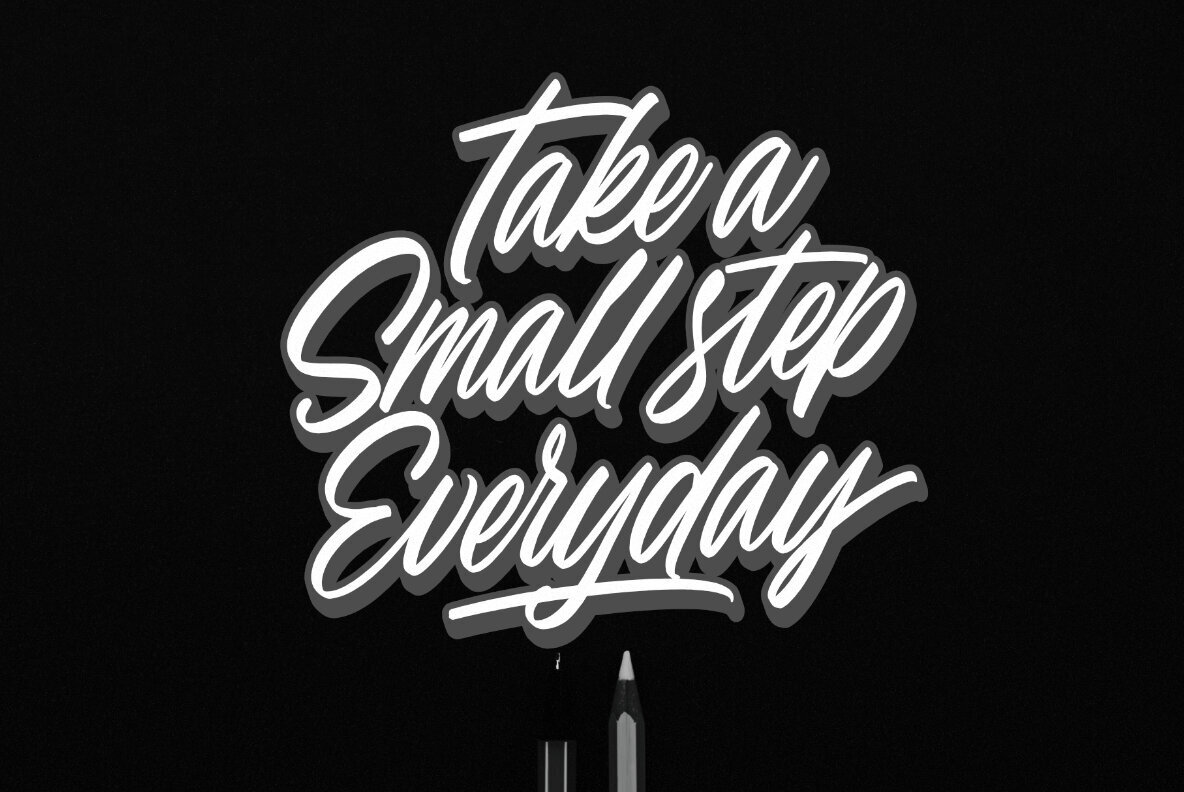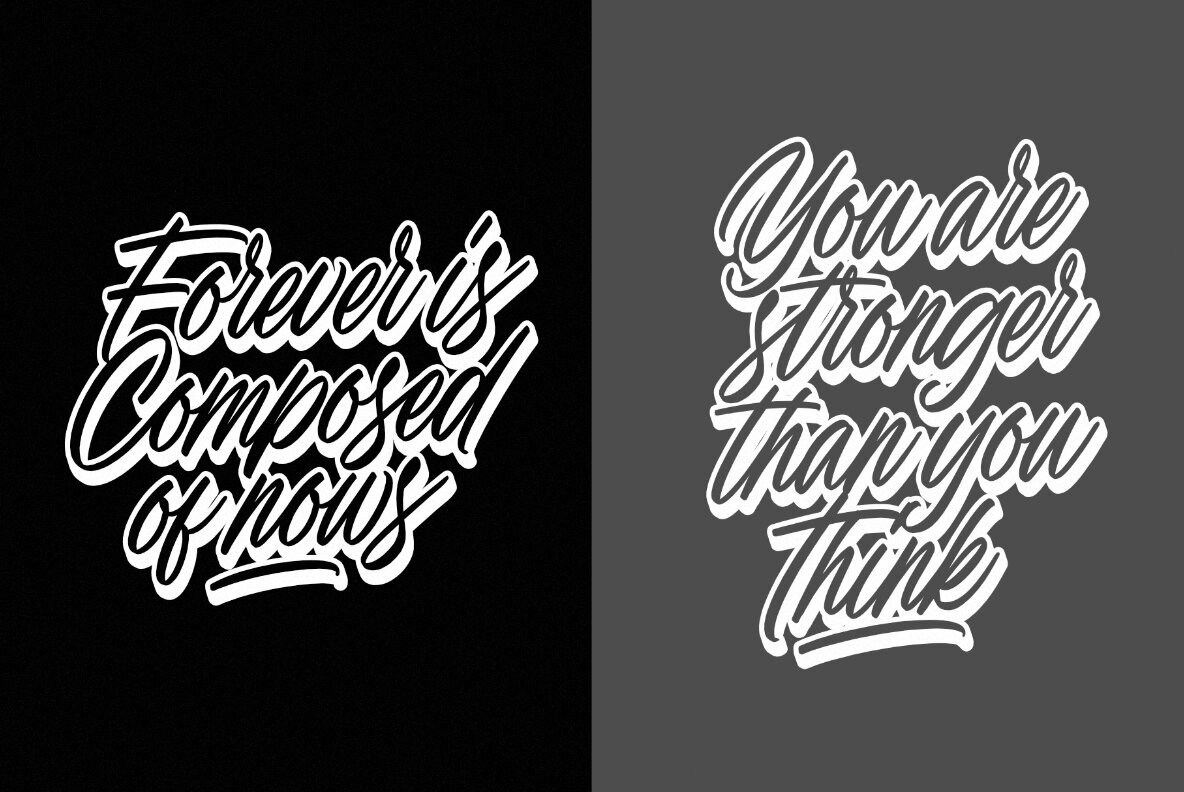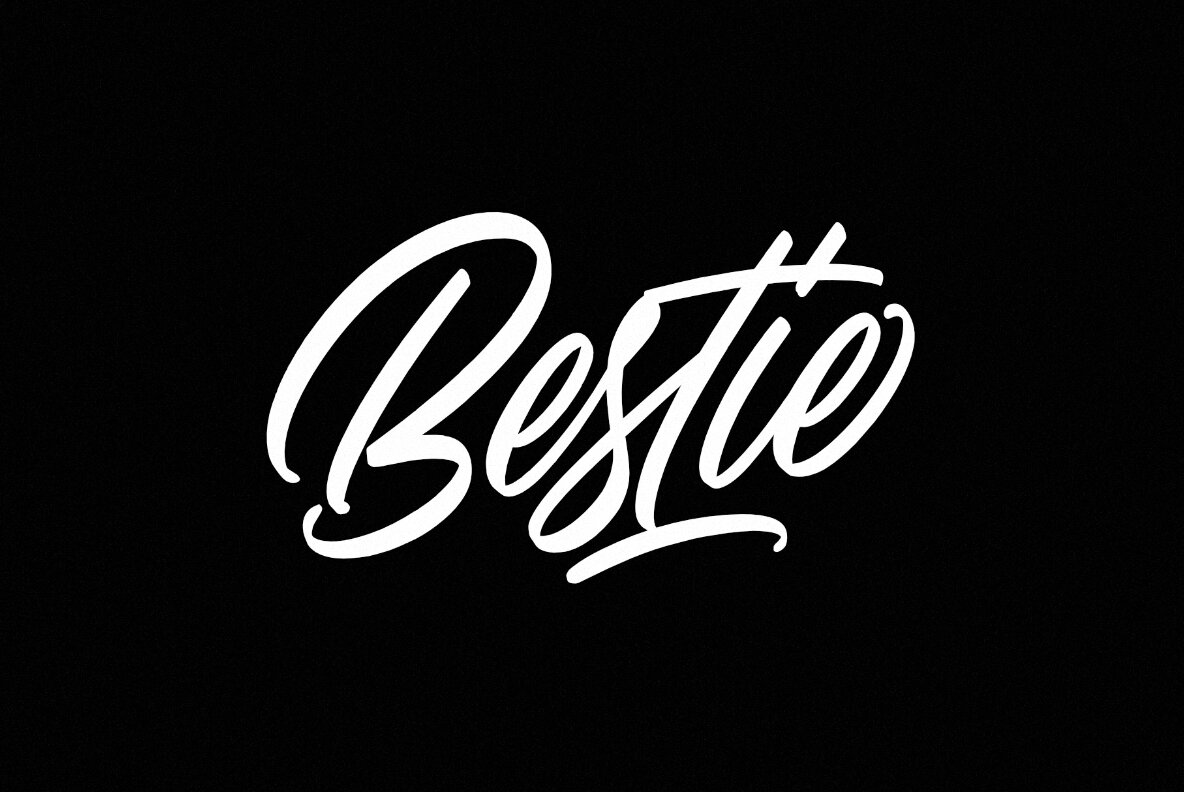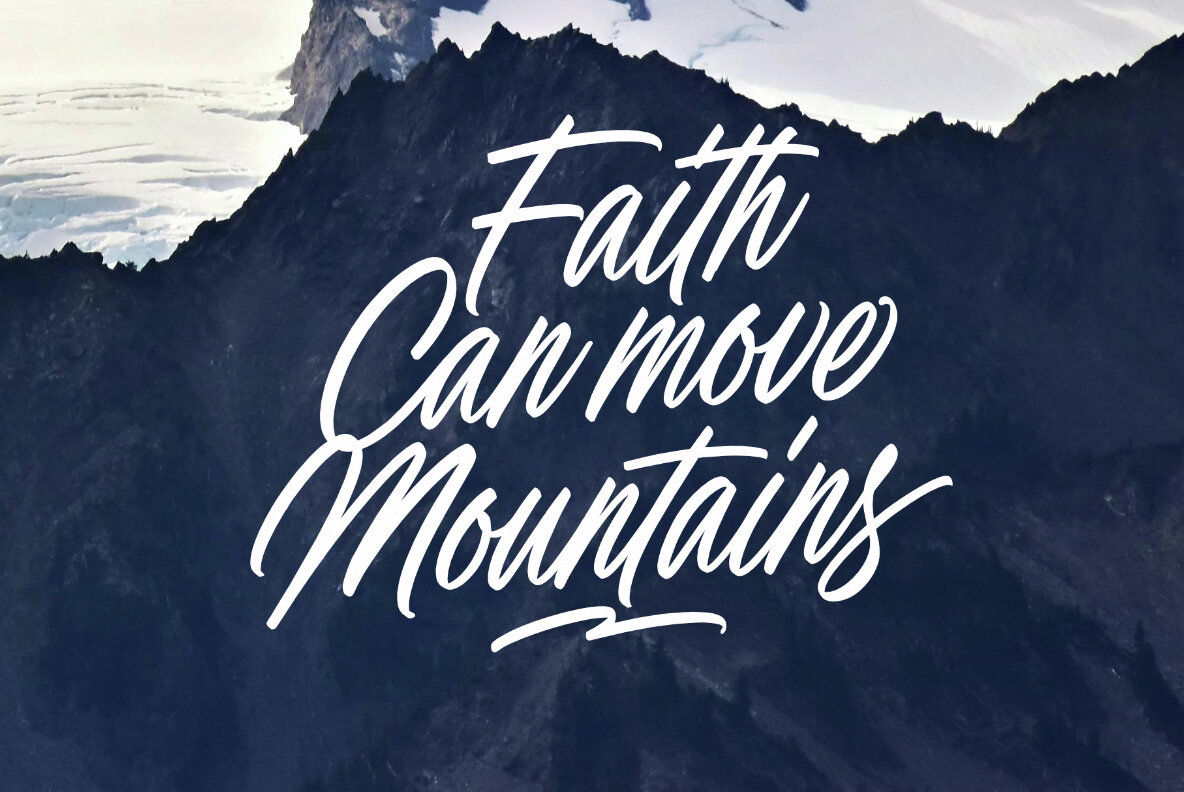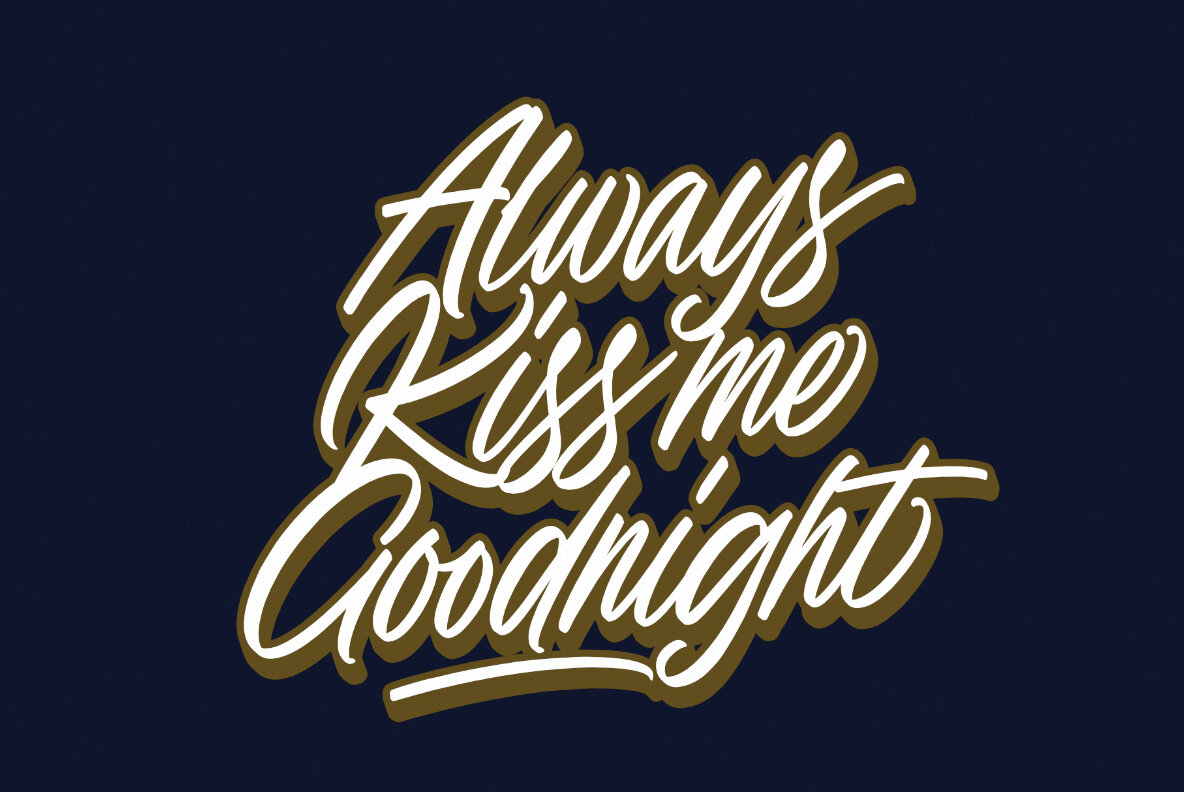
Southern Lights Font
Southern Lights is a versatile handwriting script typeface that embodies warmth, sophistication, and charm. Its smooth, flowing letterforms and delicate handcrafted style offer a beautiful blend of natural beauty and professional polish. This font captures the essence of handwritten calligraphy, making it perfect for a broad range of creative applications.
From branding and packaging to wedding stationery and social media designs, Southern Lights stands out in any project. Its elegance and adaptability make it an ideal choice for designers looking to add a touch of grace and personality to their work. Whether you're crafting an invitation or developing a brand identity, Southern Lights provides a refined and inviting aesthetic.